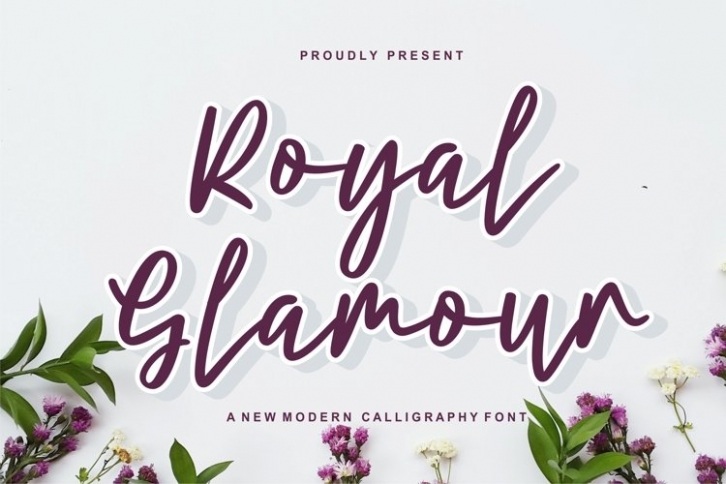
Royal Glamour is a trendy and unique font with an authentic style. It was designed by plusstore and it's a great choice for creative people who need such a font. It was released on September 18, 2022 and the file size is 20.26 MB. Royal Glamour will add an organic vibe to any design idea!